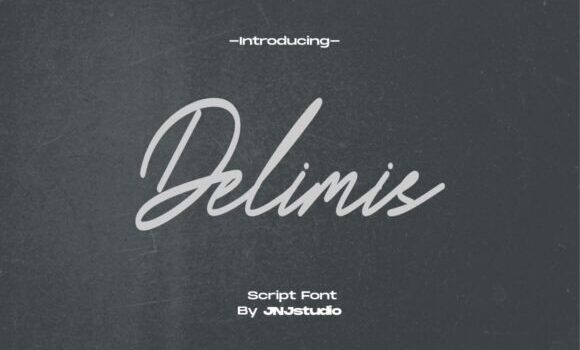
delimis
Delimis Font – Free Download Introduction to Delimis Font Introducing “Delimis” is a stylish handwritten signature font that exudes elegance and sophistication. 📸 Preview Gallery 6 images 📌 Product Name Delimis Font 👤 Author JNJ studio 📂 Category Explore ⬇️